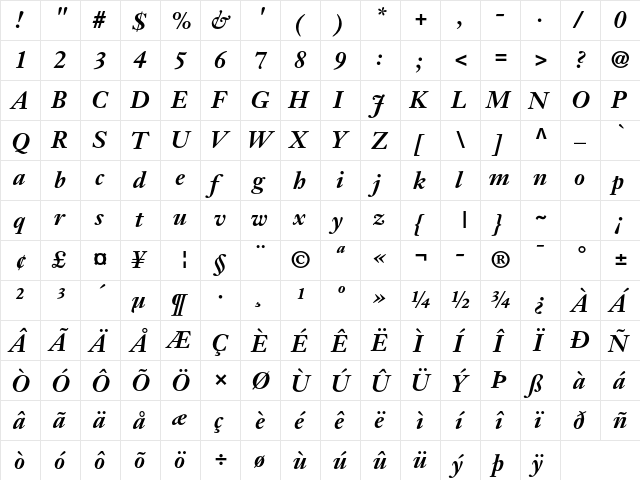
Janson Text LT Std 76 Bold Italic Font Preview
Janson Text LT Std 76 Bold Italic
Janson Text LT Std 76 Bold Italic Font Details
| Style | 76 Bold Italic |
| Designer | Nicholas Kis |
Design Context for Janson Text LT Std Typeface
Janson Text LT Std offers clean, dependable letterforms without strong stylistic allegiance, making it a practical choice for designers who need flexibility. The slanted form adds forward momentum and visual energy. The heavy weight commands attention and anchors typographic hierarchies.
Pro Tip: Use Janson Text LT Std for emphasis, pull quotes, and subheadings where its slanted energy can add rhythm to the layout.